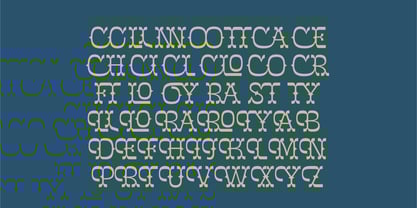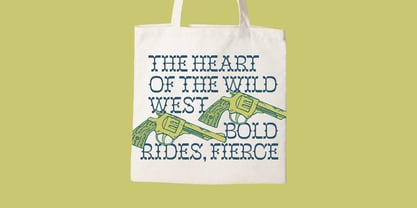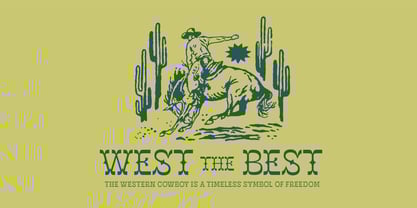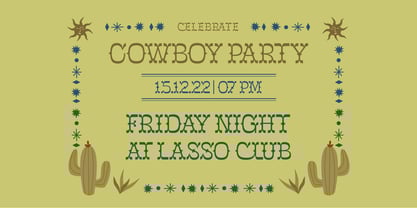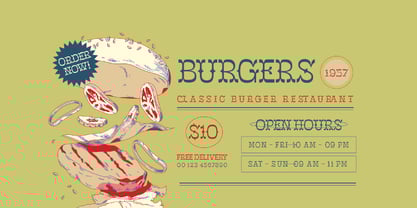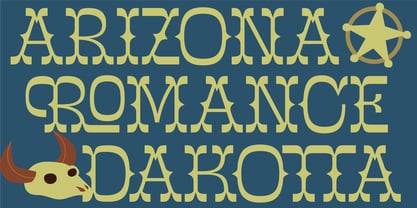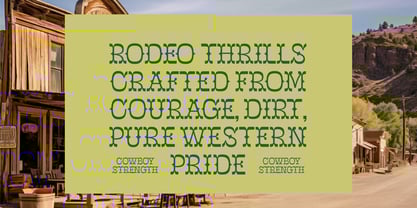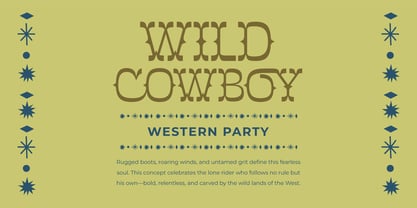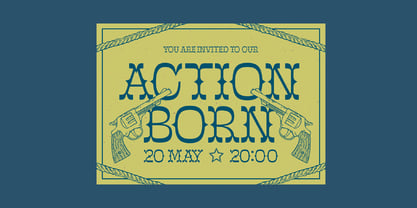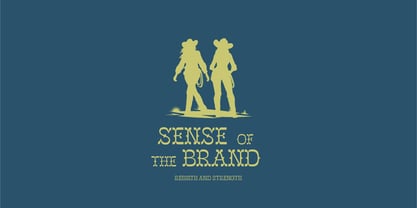
Mister Cloroph
by Timelesstype Studio
The Mister Cloroph Font Family was designed by Heru Utama Putra and published by Timelesstype Studio. Mister Cloroph contains 2 styles and family package options. More about this family
Mister Cloroph is a bold western-inspired display font that blends vintage cowboy charm with modern geometric curves. Its distinctive bridged letterforms, strong character shapes, and playful serif details make it perfect for rustic branding, outdoor-themed designs, saloon-style titles, festival posters, apparel prints, and logo work that needs personality and attitude. Featuring 24 ligatures and 21 alternates, this typeface gives designers flexible options for creating authentic western compositions with a fresh, contemporary twist